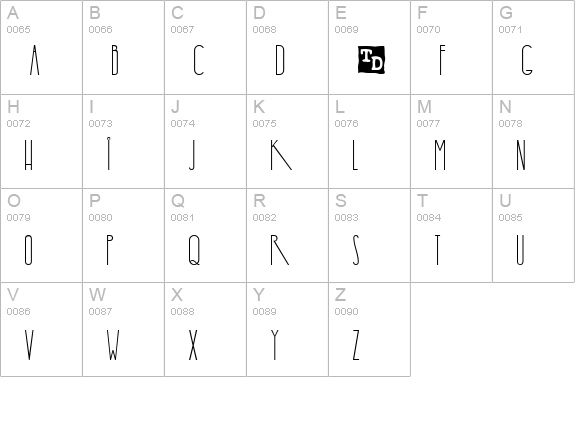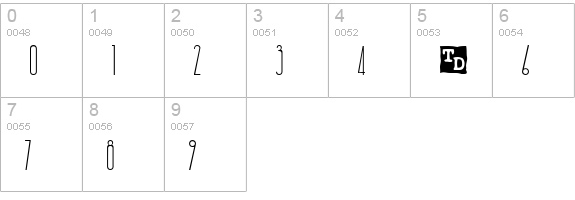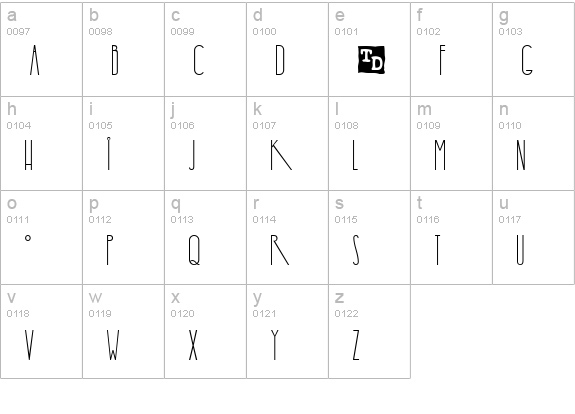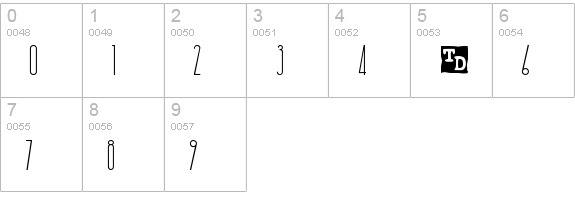
Yaroslav Trial Version Font Details
The Yaroslav Trial Version font is a modern and stylish typeface that exudes elegance and sophistication. With its unique design and sleek lines, this font is perfect for creating eye-catching designs for various projects. Whether you are working on a branding project, a poster, or a website, the Yaroslav Trial Version font is sure to make a statement. Best of all, this font is available for free download at FontsMarket.com. You can easily access this versatile typeface and use it in your projects without any cost. Don't miss out on the opportunity to add the Yaroslav Trial Version font to your font collection today!